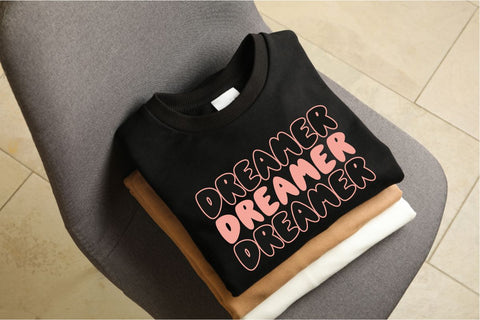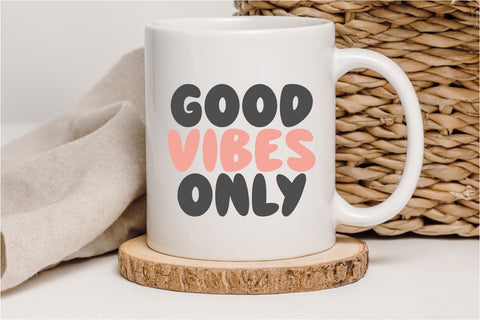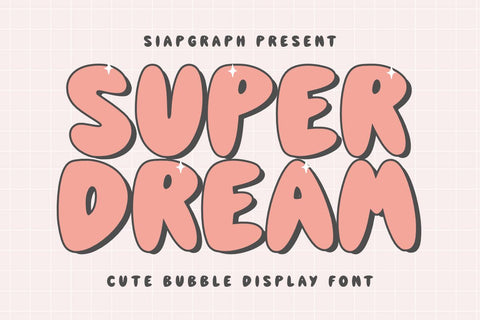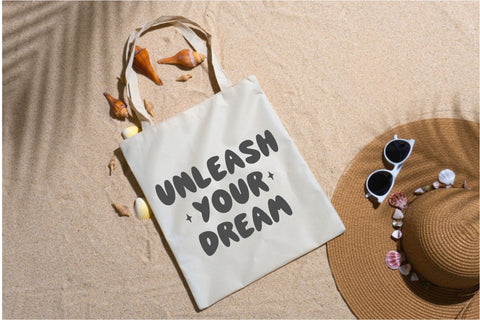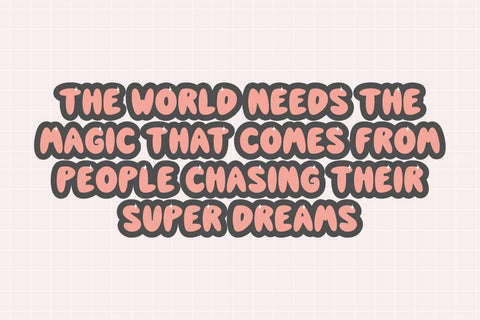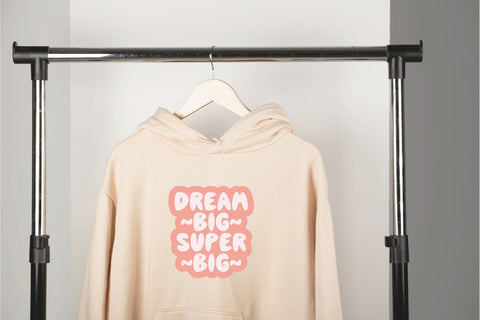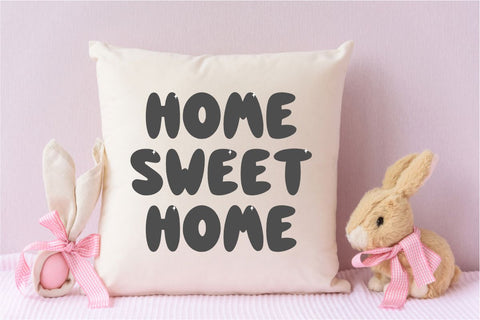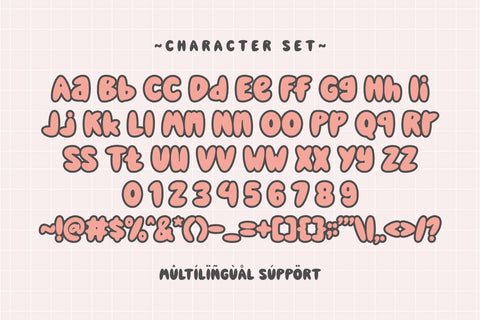
Super Dream - Retro Bubble Font
Super Dream is a cute and incredibly playful bubble font that instantly brings a burst of joy and whimsical charm to any design. Its thick, rounded, and wonderfully bouncy letterforms, complete with a subtle inner highlight, create a delightful three-dimensional effect that makes text truly pop with personality. This font is perfect for infusing a dose of fun and cheerfulness into a wide variety of creative projects. Imagine Super Dream enhancing vibrant stickers, enchanting planner elements, eye-catching t-shirt designs, sweet product labels, cheerful invitations, personalized tumblers, and a plethora of other engaging crafts. Its distinctively bubbly and friendly style makes it exceptionally well-suited for products targeting end-users who enjoy crafting with tools like Cricut and for sublimation projects, as well as for creating appealing stickers and planner elements with a truly unique flair. Super Dream's unforgettable and lively character will ensure your creations stand out and bring a big smile to everyone who sees them, making every design a super dream come true!